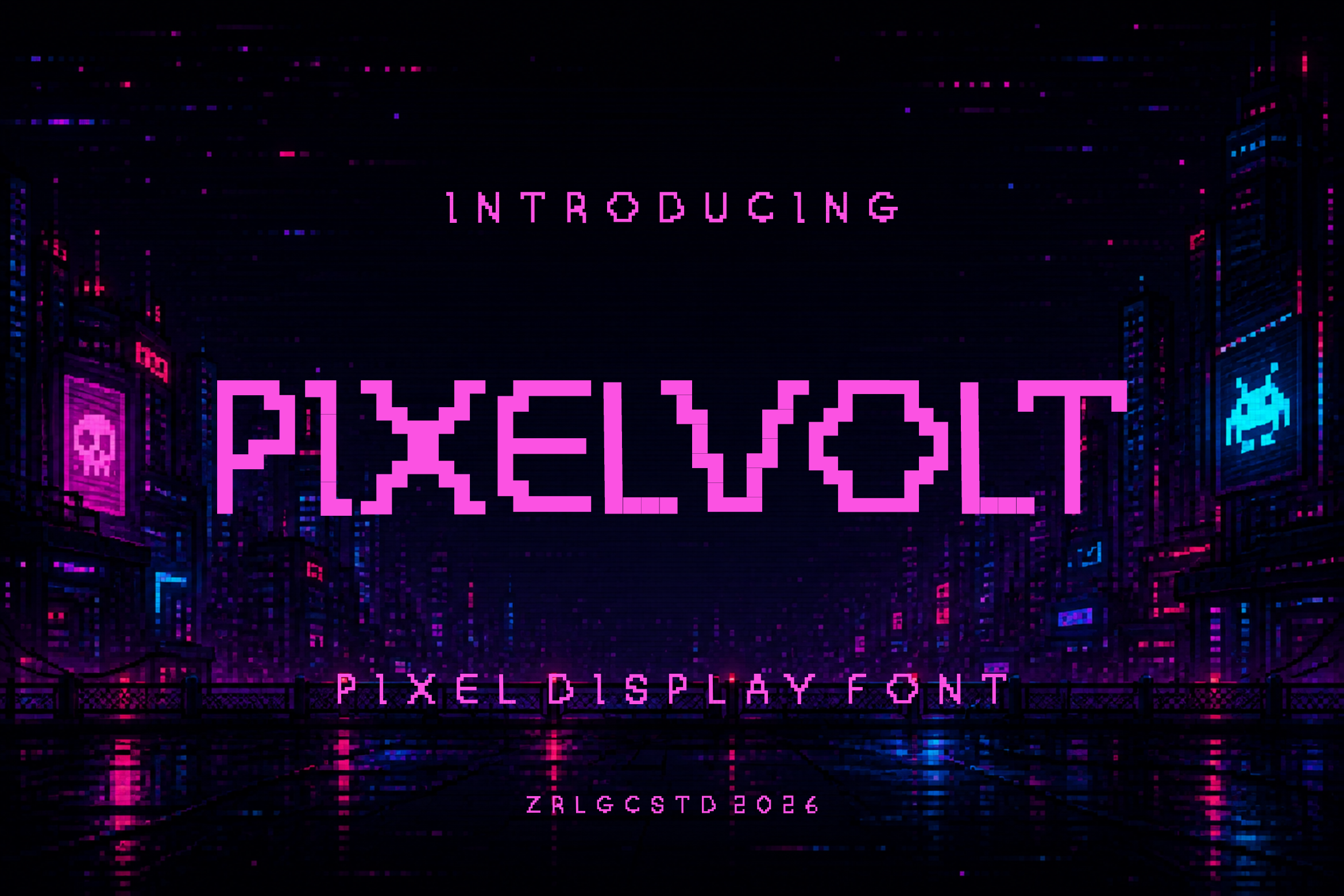
PIXELVOLT Display Typeface
PIXELVOLT is a retro Pixel Cyberpunk Display Typeface designed to bring a bold 8-bit aesthetic to digital creations. With its distinctive pixel-built characters, PIXELVOLT is perfect for games, posters, logos, branding, UI/UX designs, movie titles, social media graphics, YouTube thumbnails, and more.
Inspired by classic arcade games and futuristic digital interfaces, PIXELVOLT combines a nostalgic retro feel with a clean, modern visual style.
PIXELVOLT — Crisp. Retro. Legendary.